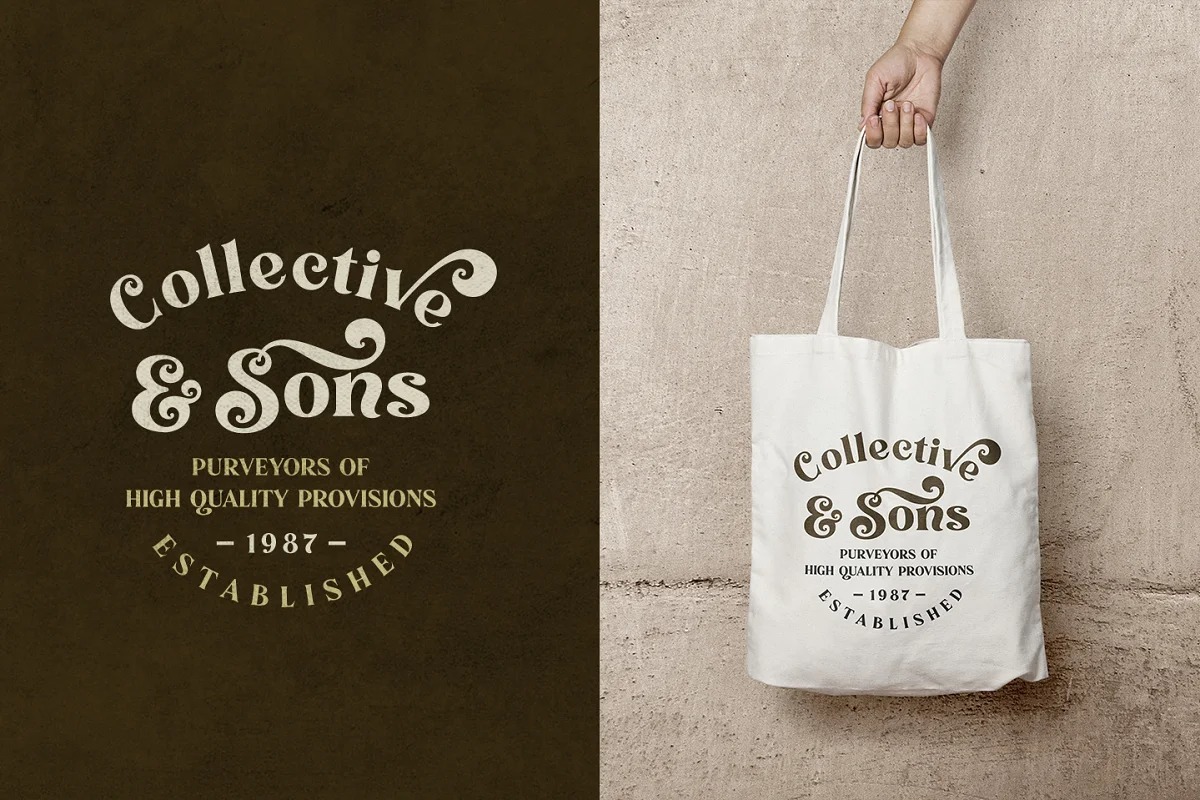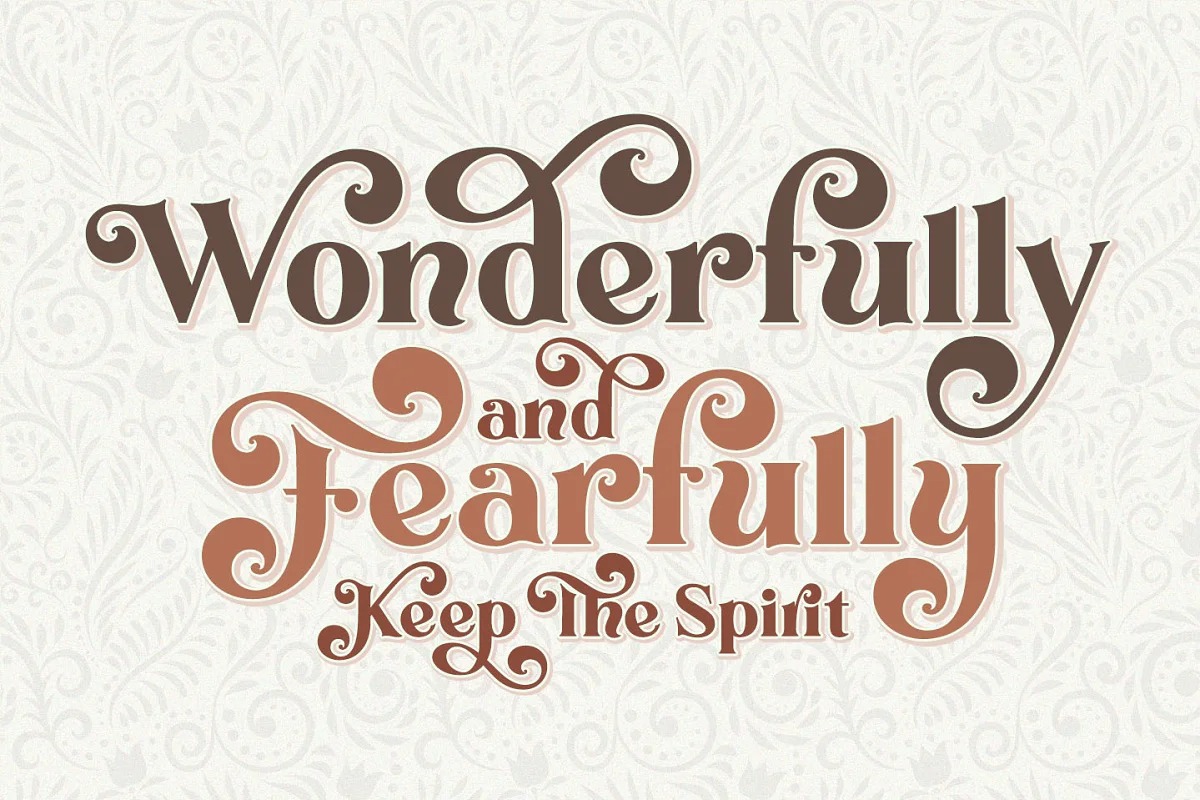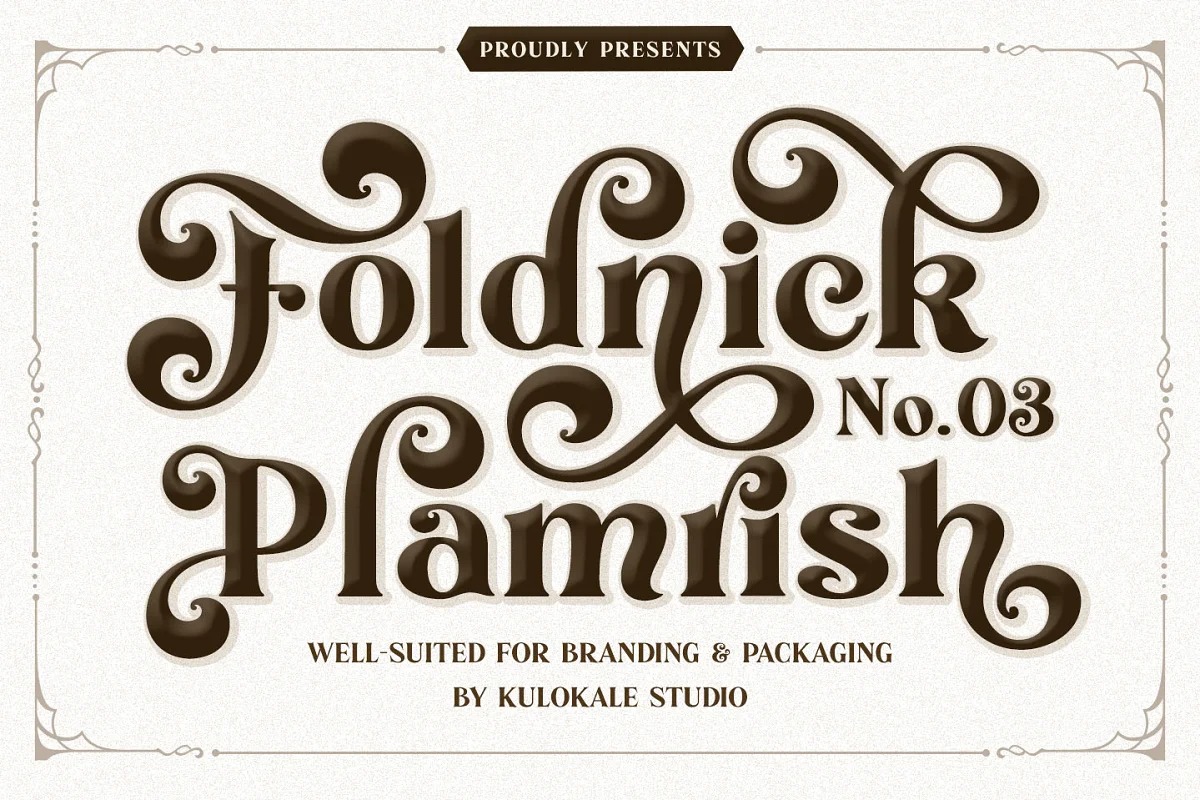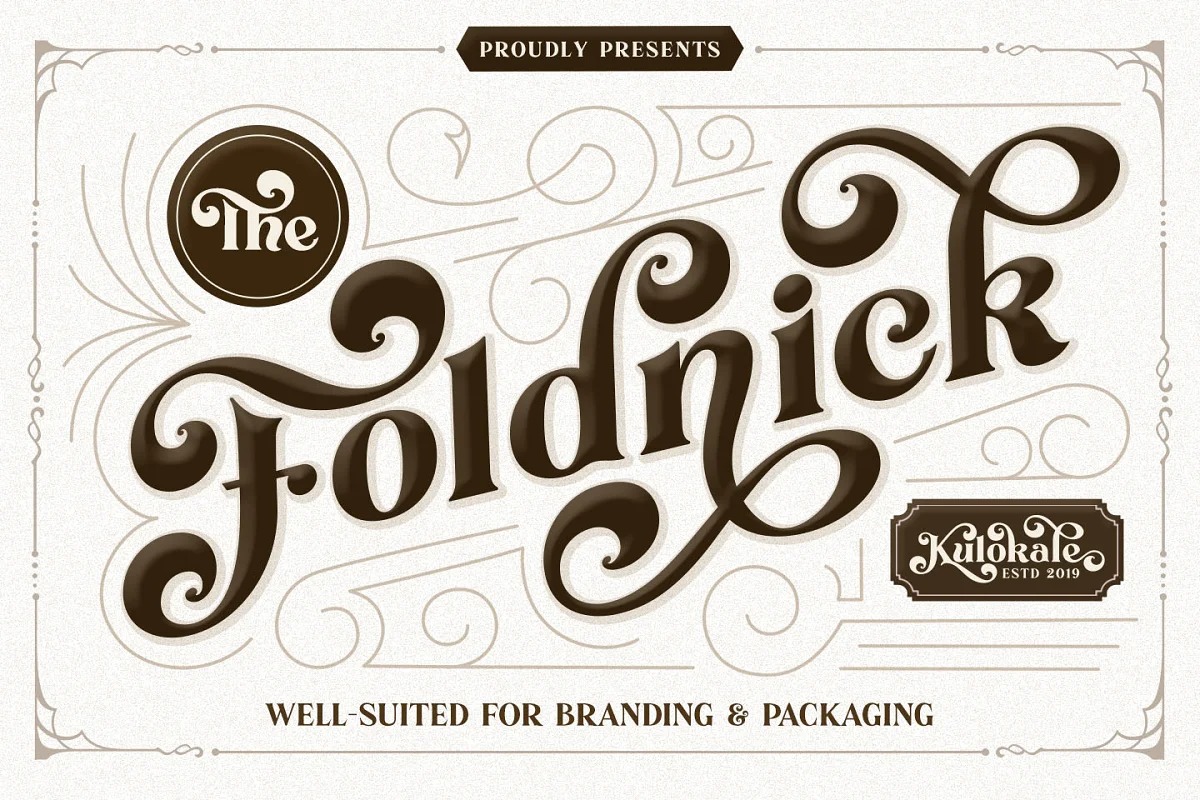
Foldnick Font
Foldnick Serif Font
This is a modern serif display typeface created by Kulokale with beautiful ligatures, tons of special alternative glyphs, ornament and multilingual support which makes it easy for you to create a logo for your personal branding and your business beautifully.
Foldnick is perfect for many different projects such as logos & branding, invitation, stationery, wedding designs, social media posts, advertisements, printed quotes, product packaging, product designs, label, photography, watermark, special events or anything.